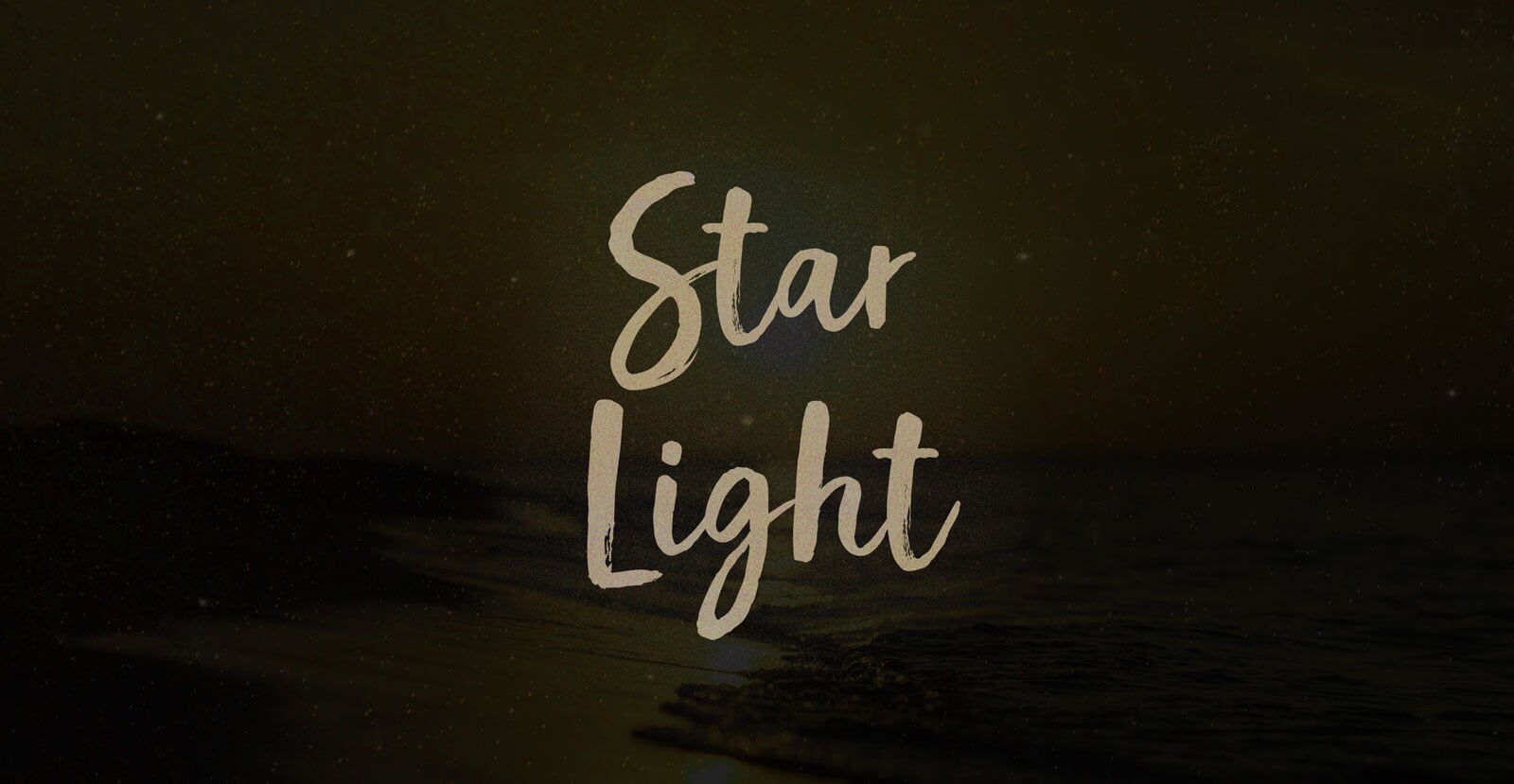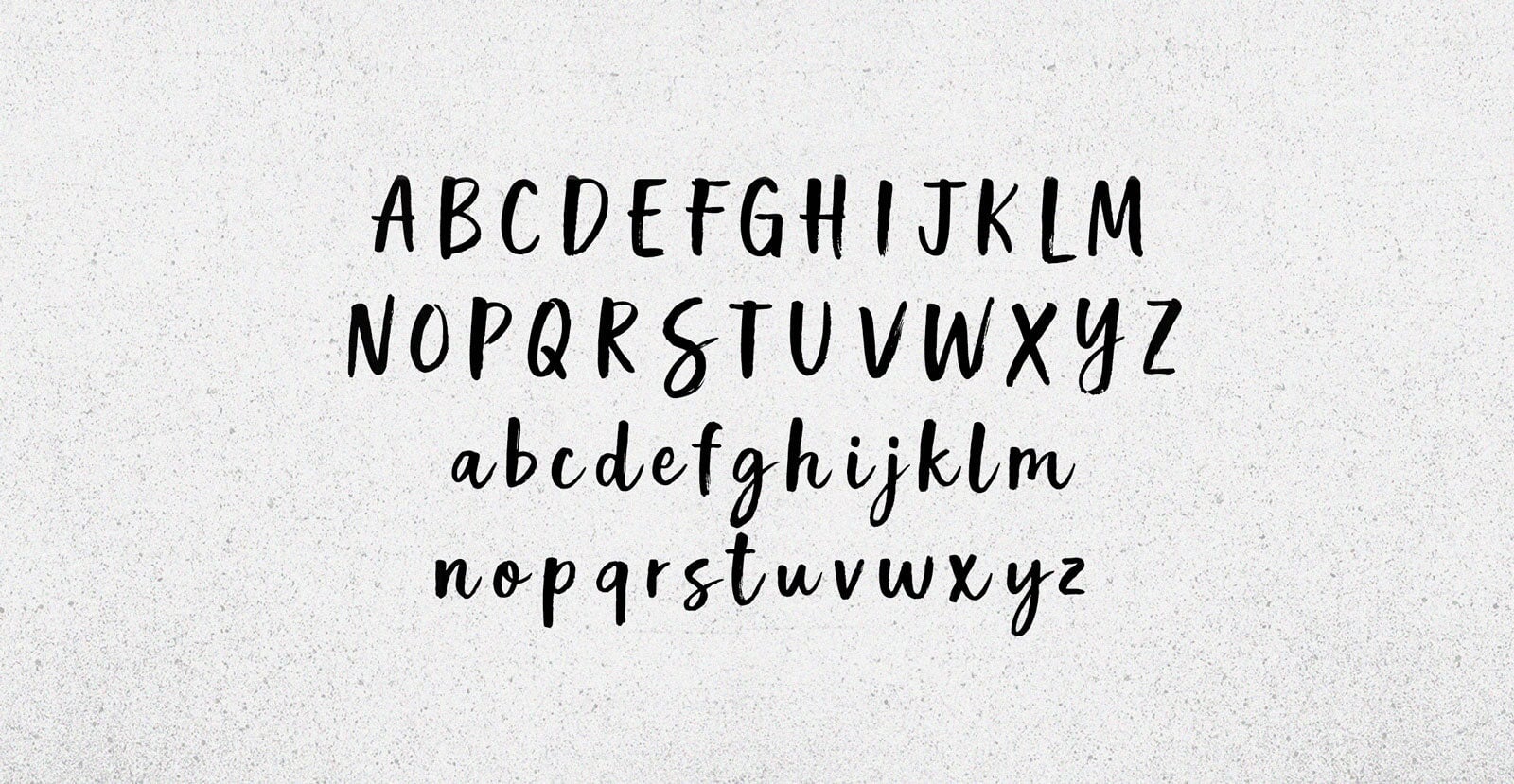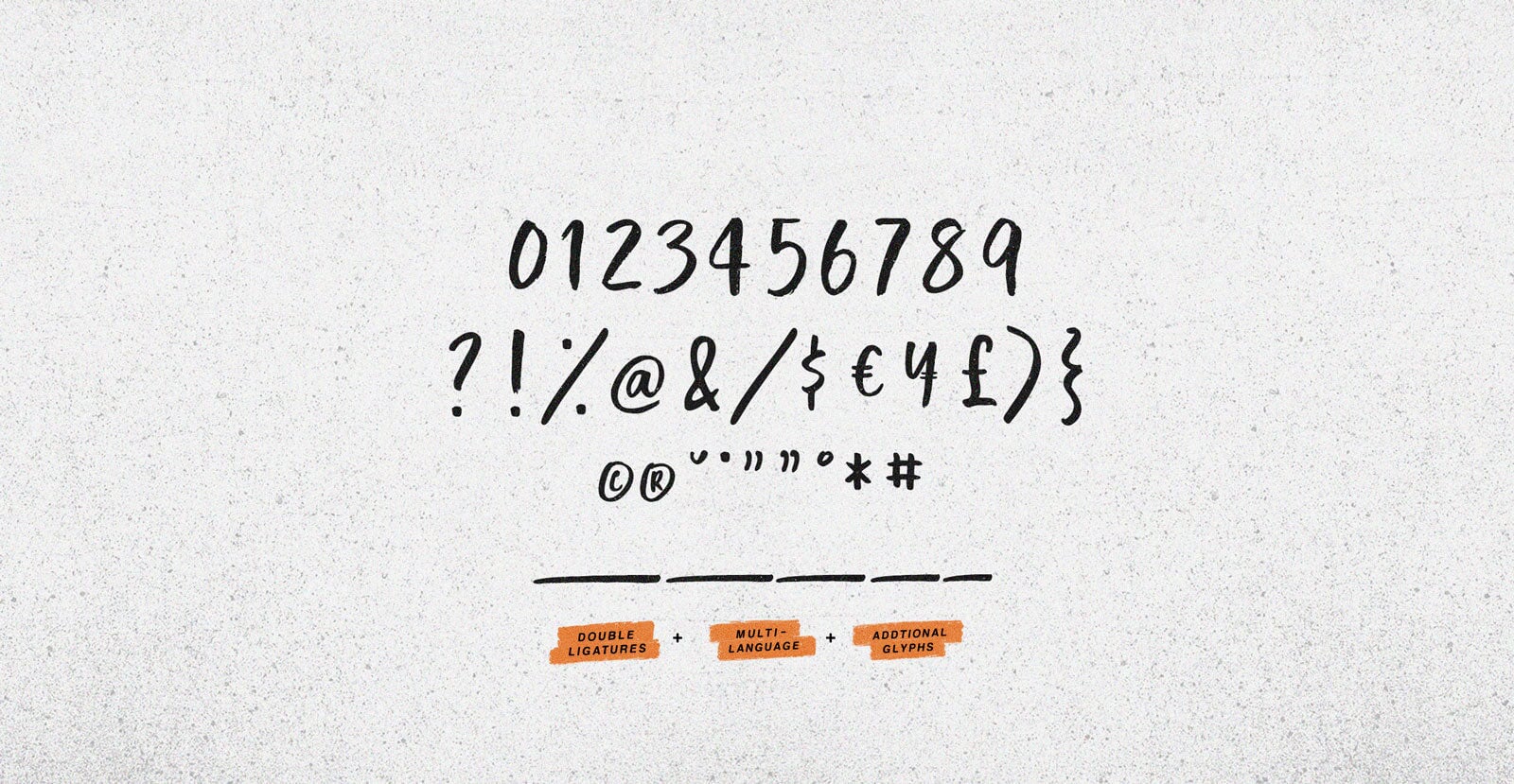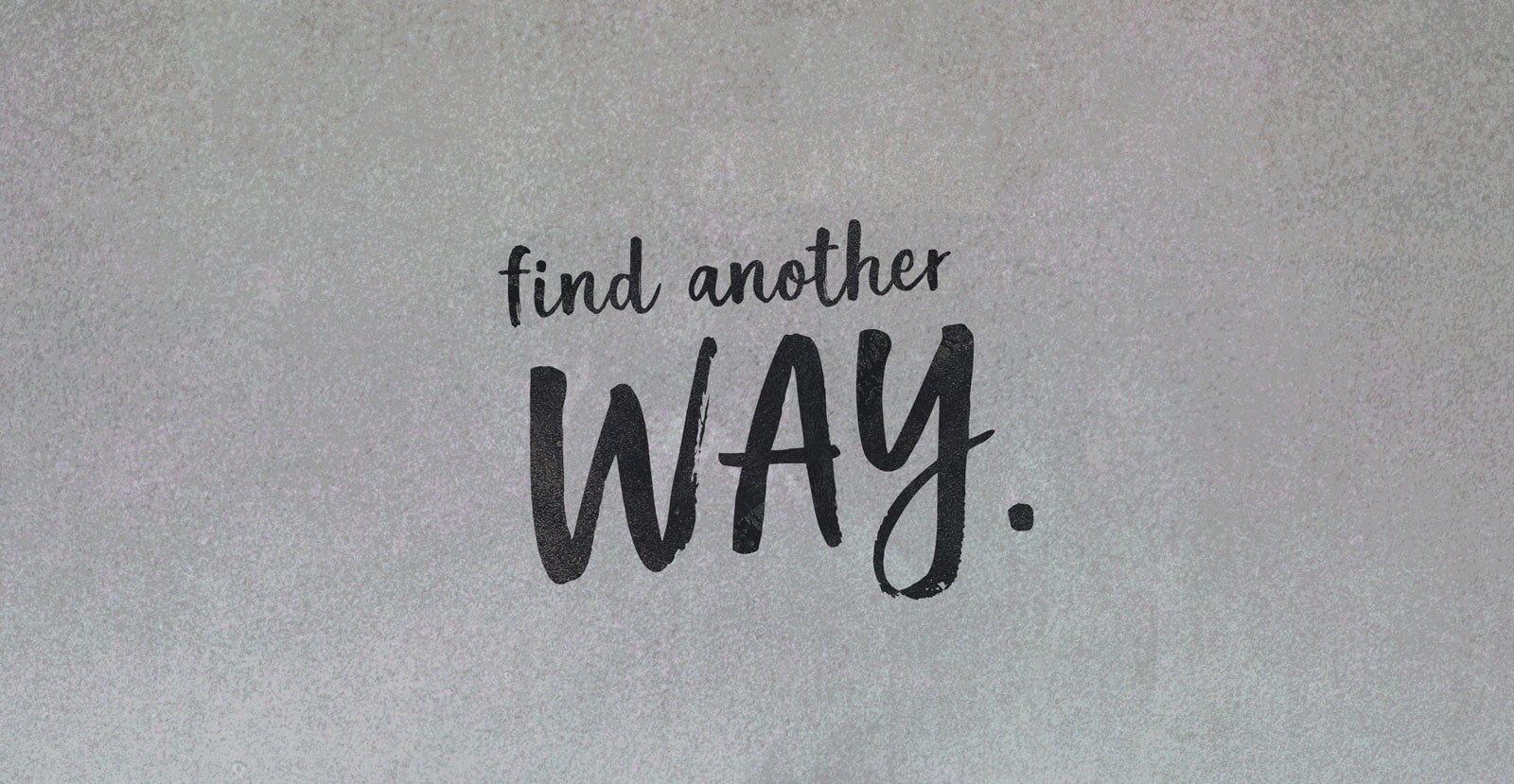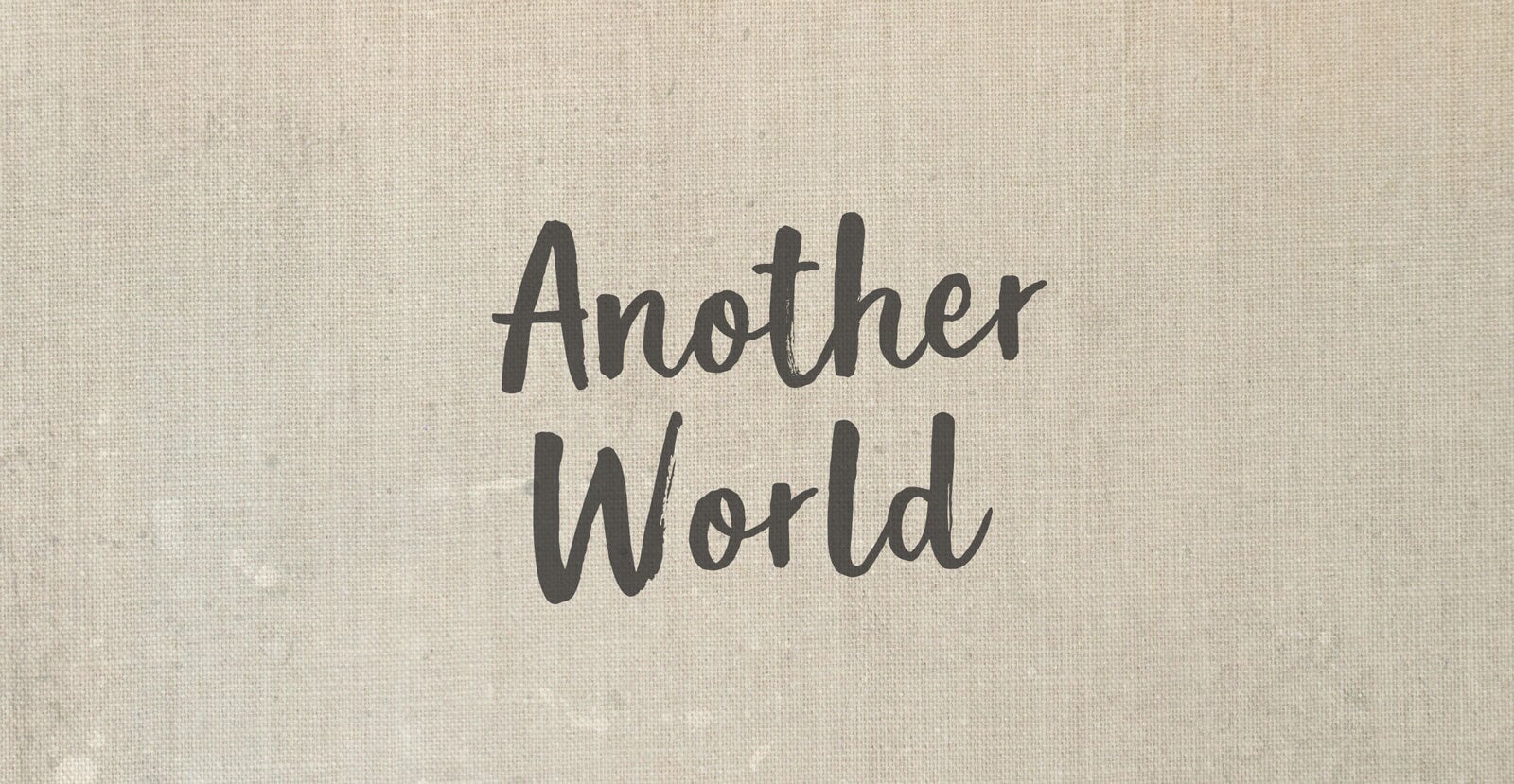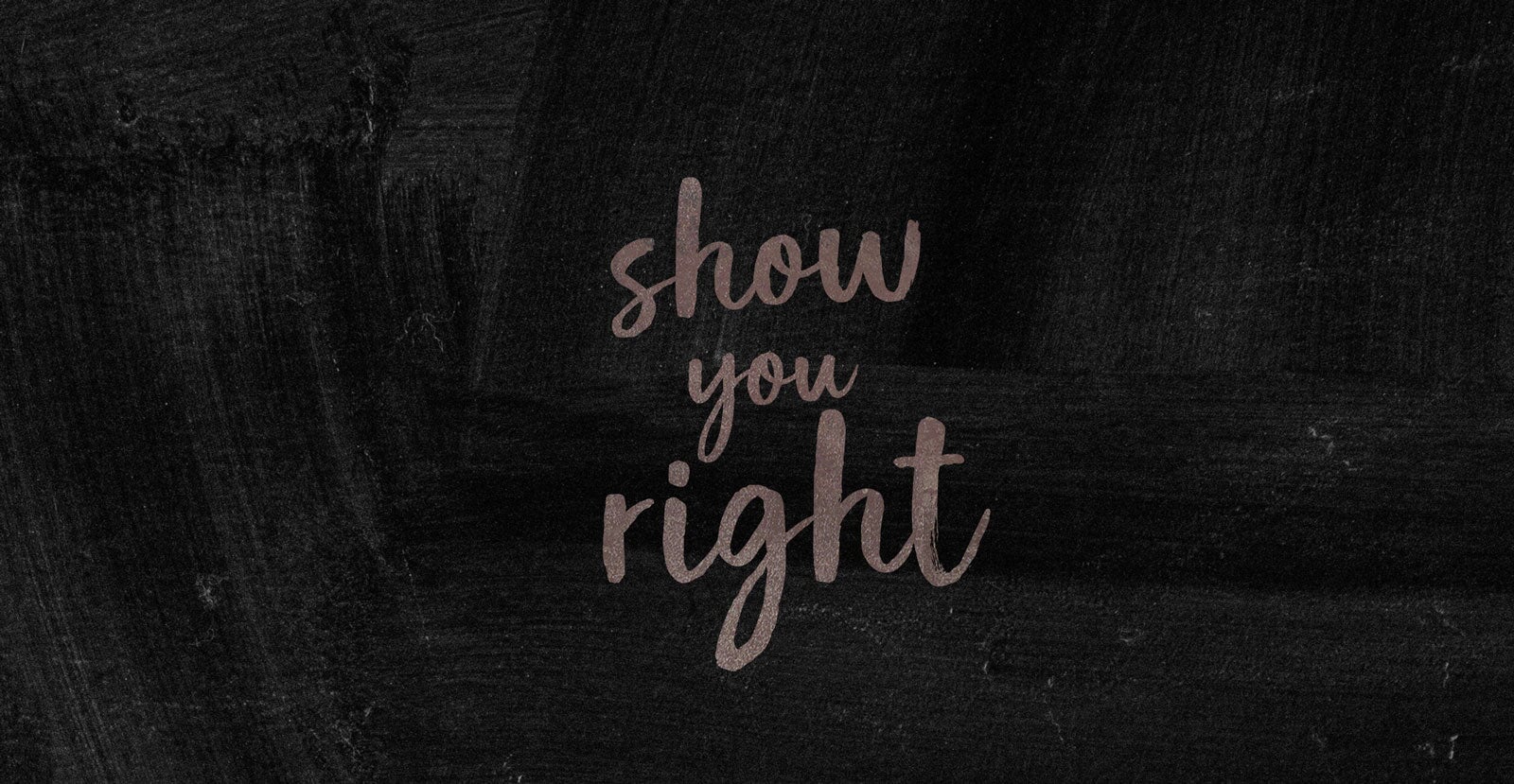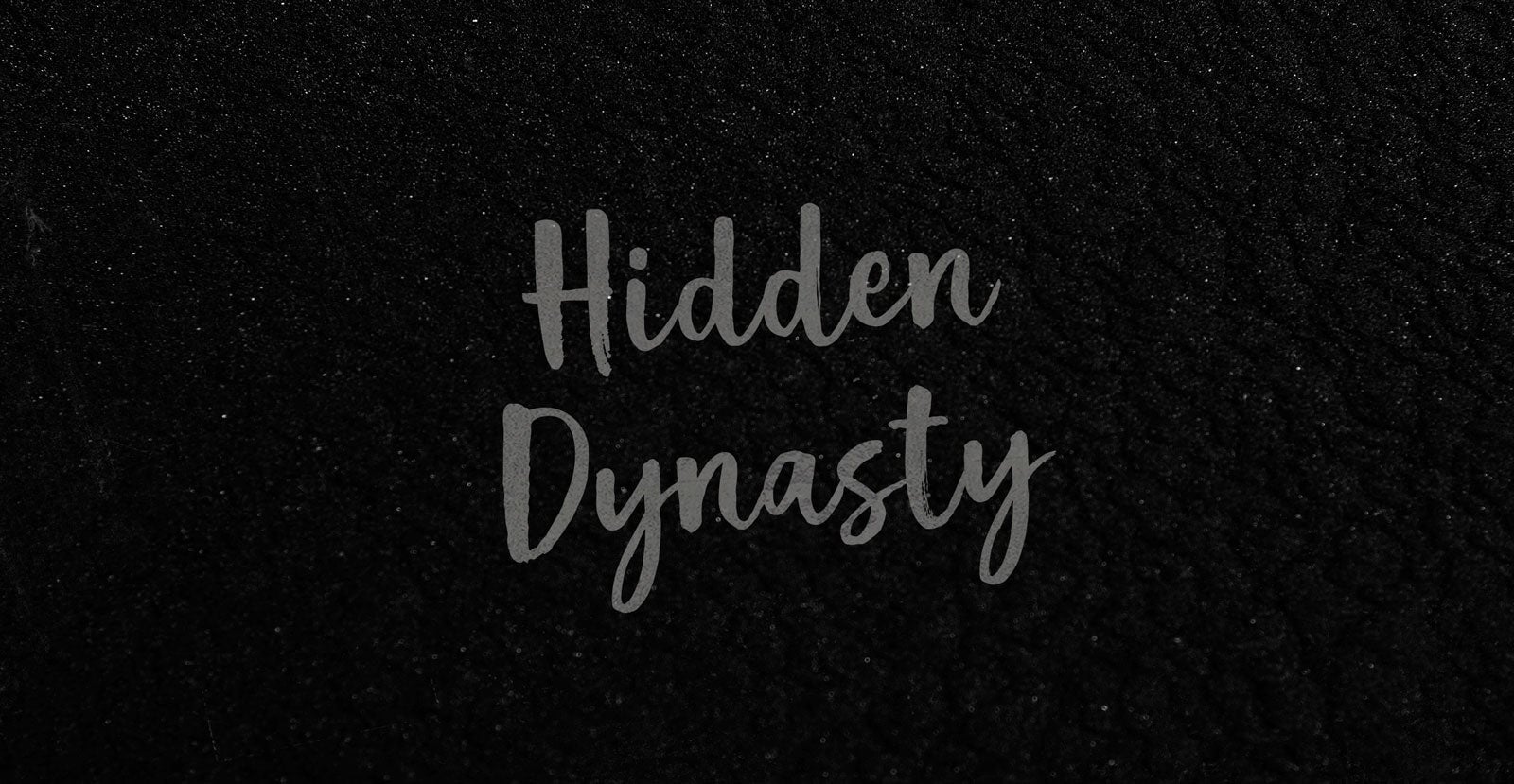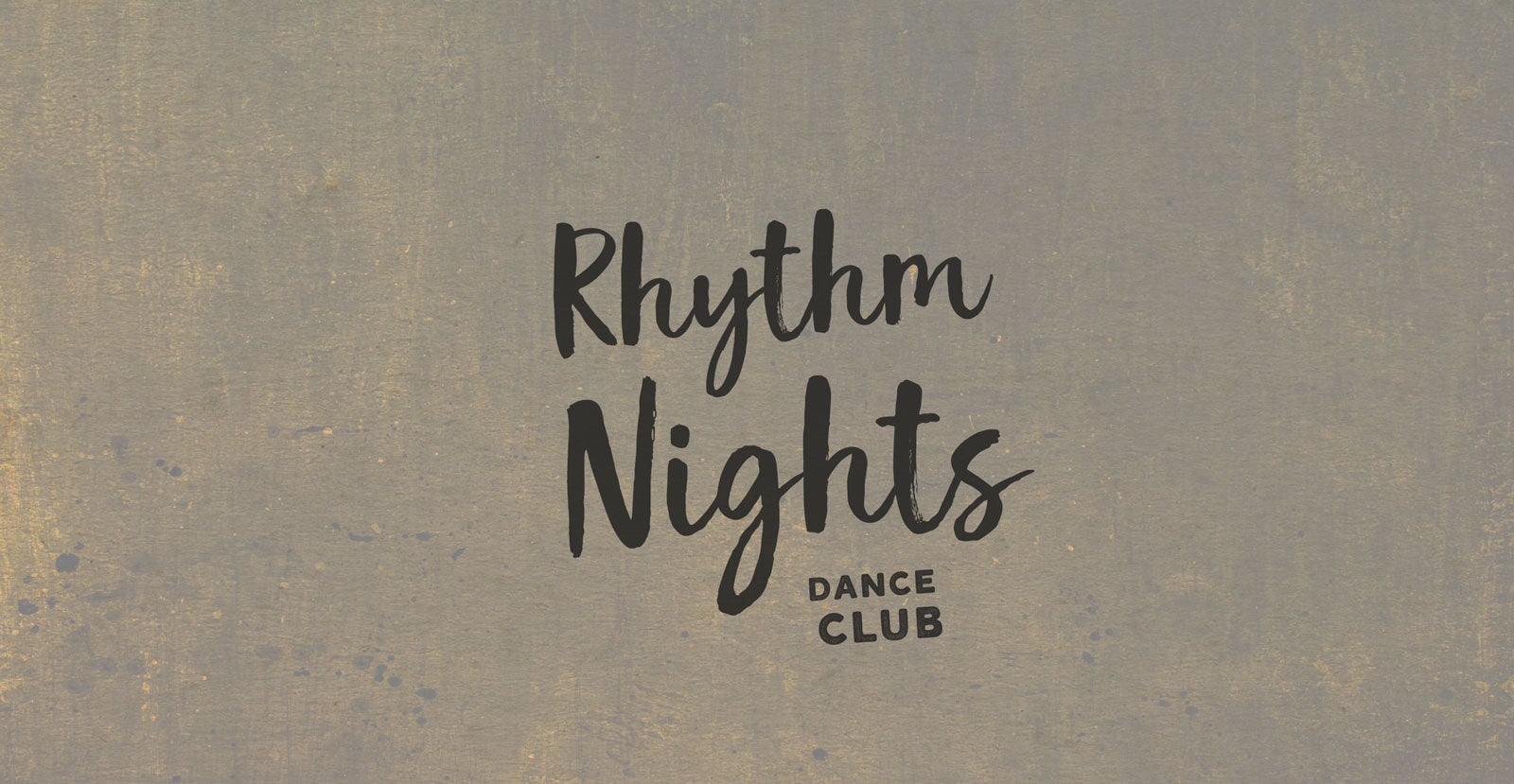
Star Light
Star Light is made to move differently—subtle, fluid, and quietly bold. It brings a sense of rhythm and presence without needing to shout. Designed for those who care about detail, tone, and the feeling something leaves behind.